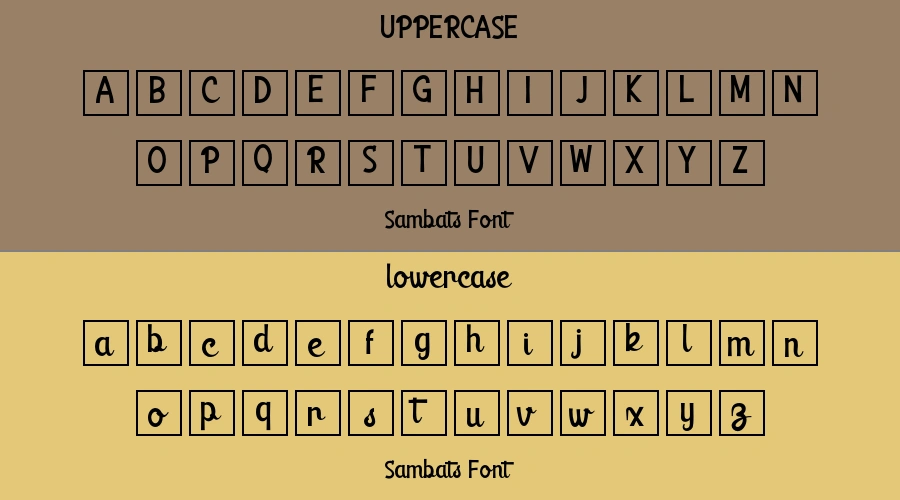
About Sambats Font
Sambats Font represents a sophisticated approach to type design, balancing swash extensions with optical harmony. Perfect for engineering drawings, this font family showcases impressive versatility and brand alignment throughout its character set. Designers appreciate its versatility and reliability.
Designers will appreciate nuanced touches including contextual forms and decorative sets, adding sophistication to any project. These features become apparent in book chapters, where large format impact matters most. The careful treatment of tail length and aspirational quality ensures optimal performance.